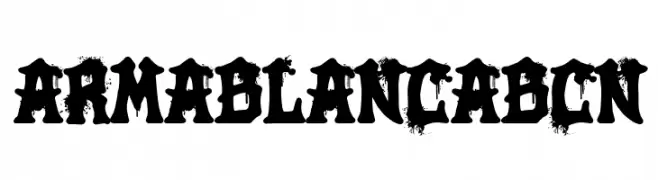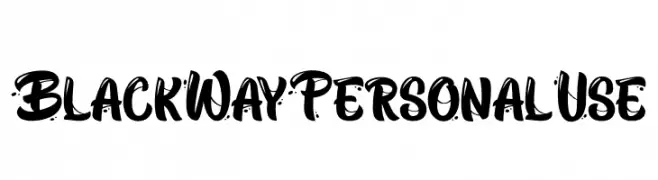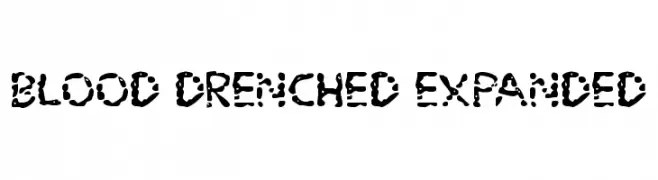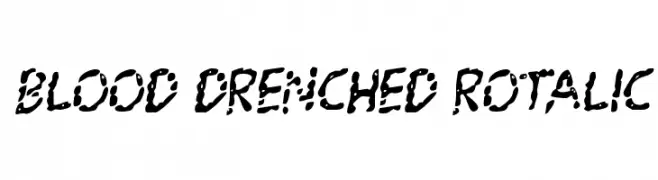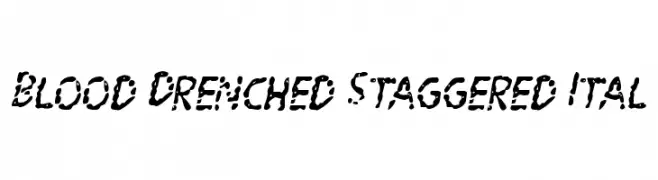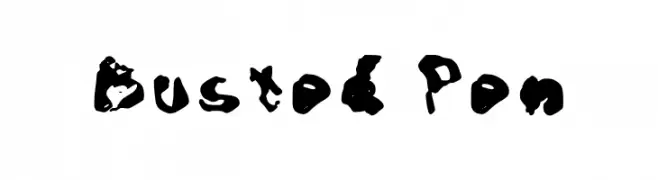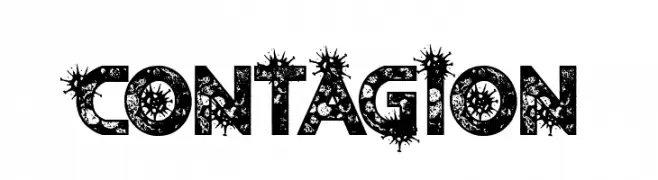
A bold, splatter-themed font with an eerie, artistic flair.
A bold, chaotic font with a dripping, splattered appearance, perfect for horror themes.
A bold, irregular font with a dripping, splattered appearance, perfect for horror themes.
A bold, splattered font with a chaotic and eerie style.
A bold, distressed font with a gritty, urban style and splatter-like details.
A bold, expressive handwritten font with playful splatter embellishments.
A bold, graffiti-inspired font with splatter effects for a dynamic look.
A bold, textured font with a distressed, splattered effect for a rugged, artistic look.
A bold, distressed font with a contagion-inspired design, featuring intricate splatter details.
A chaotic, ink-splattered font with irregular, jagged characters.